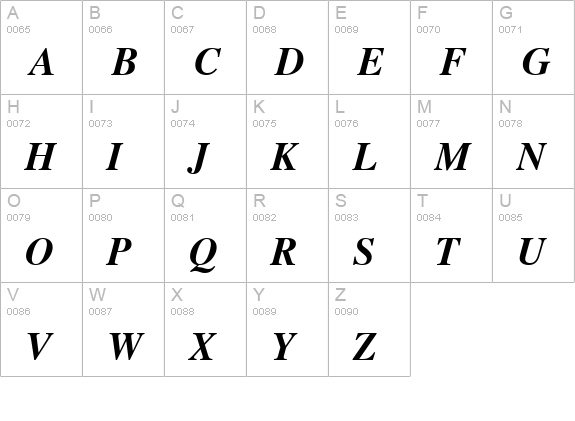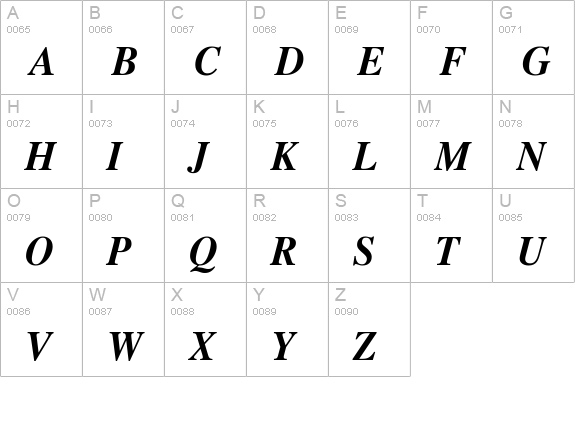
Greco Black SSi Bold Italic is a maximum-weight, dramatic, italic variant in the Greco typeface family \xE2\x80\x94 well suited to maximum-impact headlines, posters, and packaging.
The Greco Black SSi Bold Italic font exudes a bold and dynamic presence with its sleek design and sharp lines. Perfect for making a statement or adding a touch of elegance to your projects, this font is ideal for headlines, titles, and other attention-grabbing elements. The bold italic style adds a modern twist to traditional typography, making it versatile for various design purposes. Best of all, the Greco Black SSi Bold Italic font is available for free download at FontsMarket.com. This means you can effortlessly enhance your designs without breaking the bank. Whether you're working on a creative project, branding materials, or simply looking to elevate your typography game, this font is a fantastic choice that combines style and accessibility. Download it today and let your creativity shine with Greco Black SSi Bold Italic.